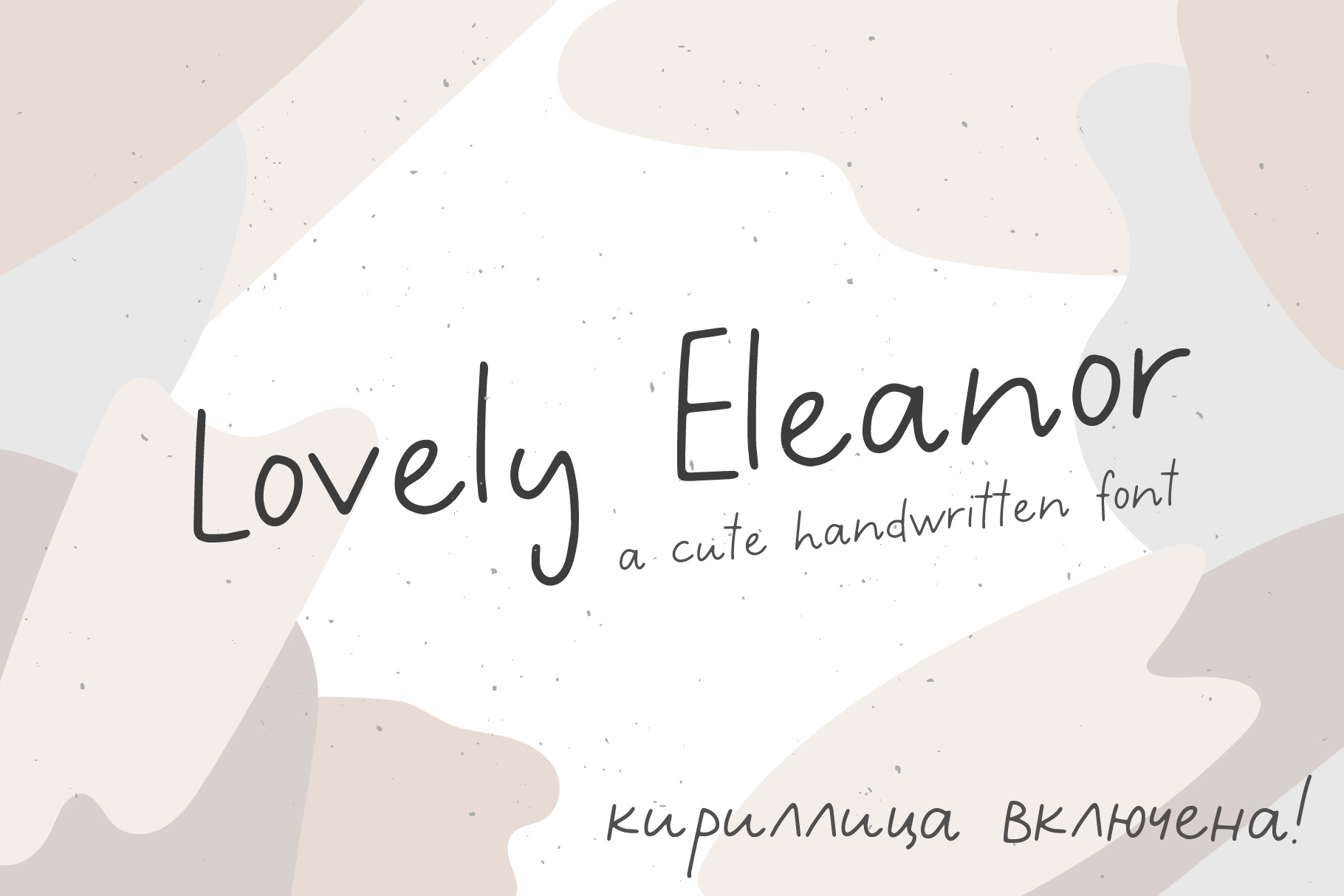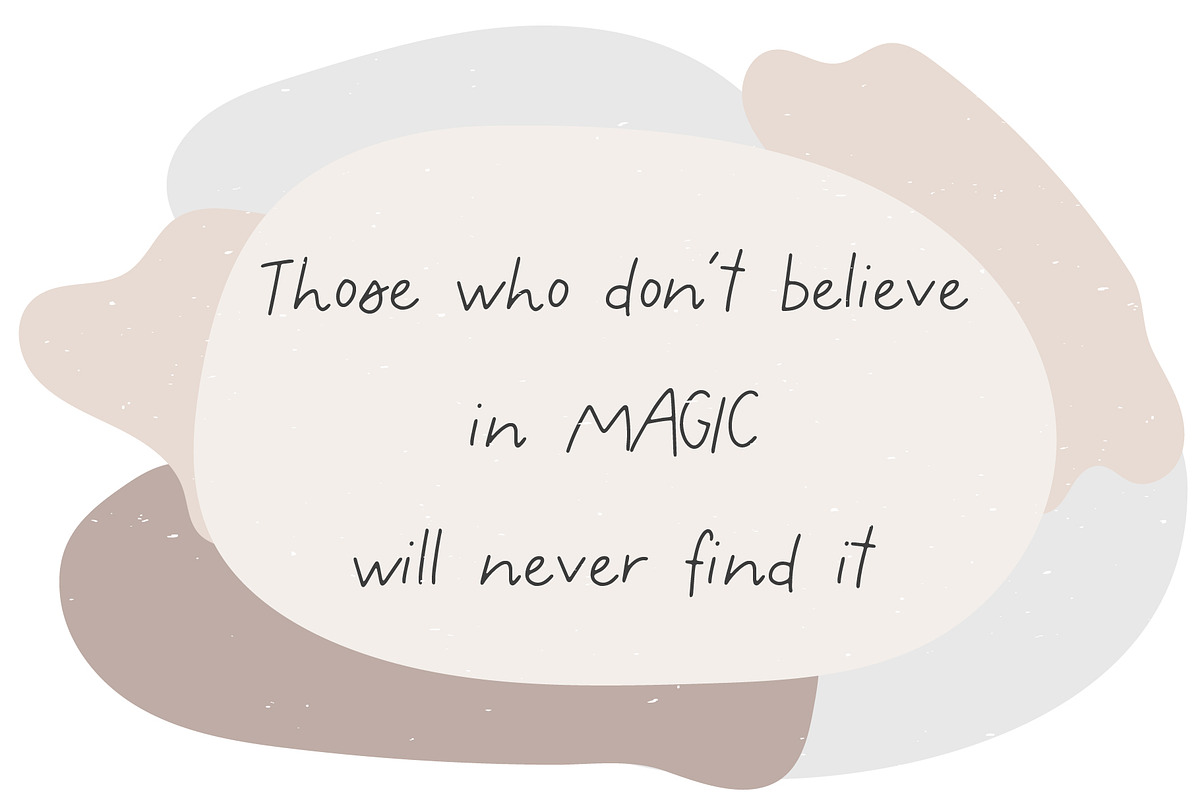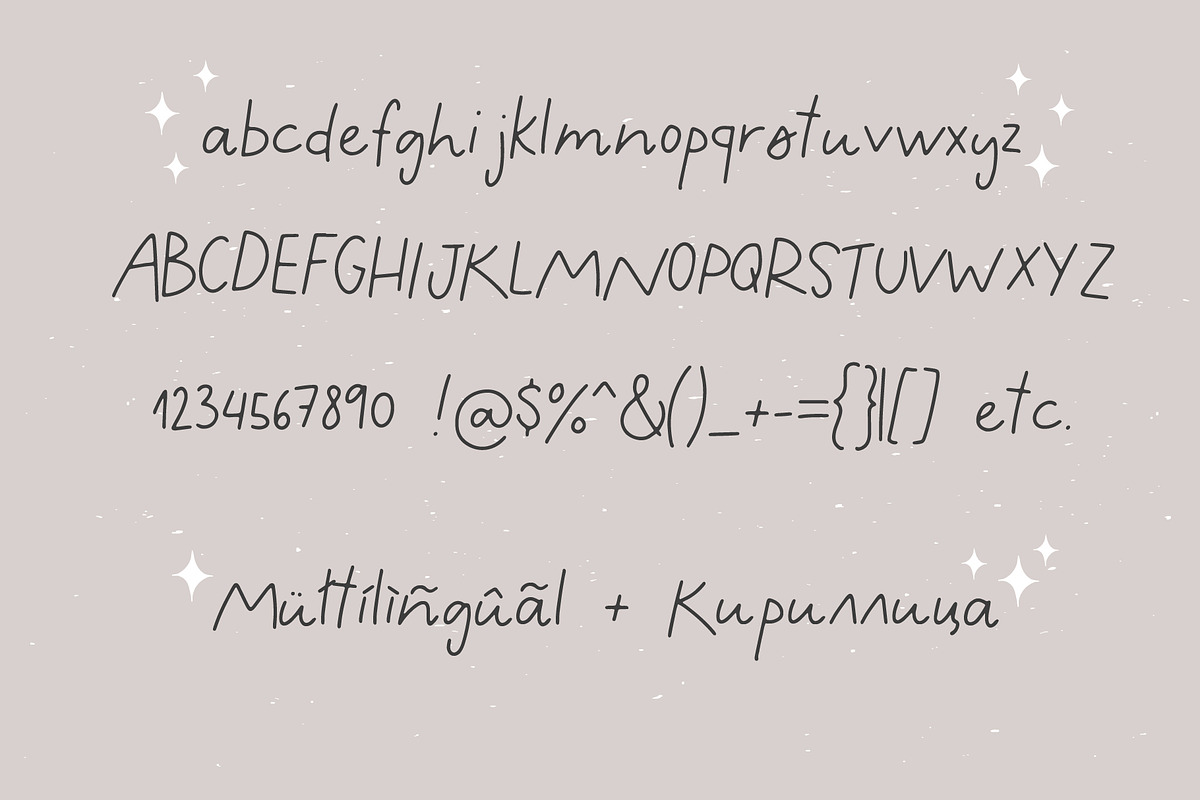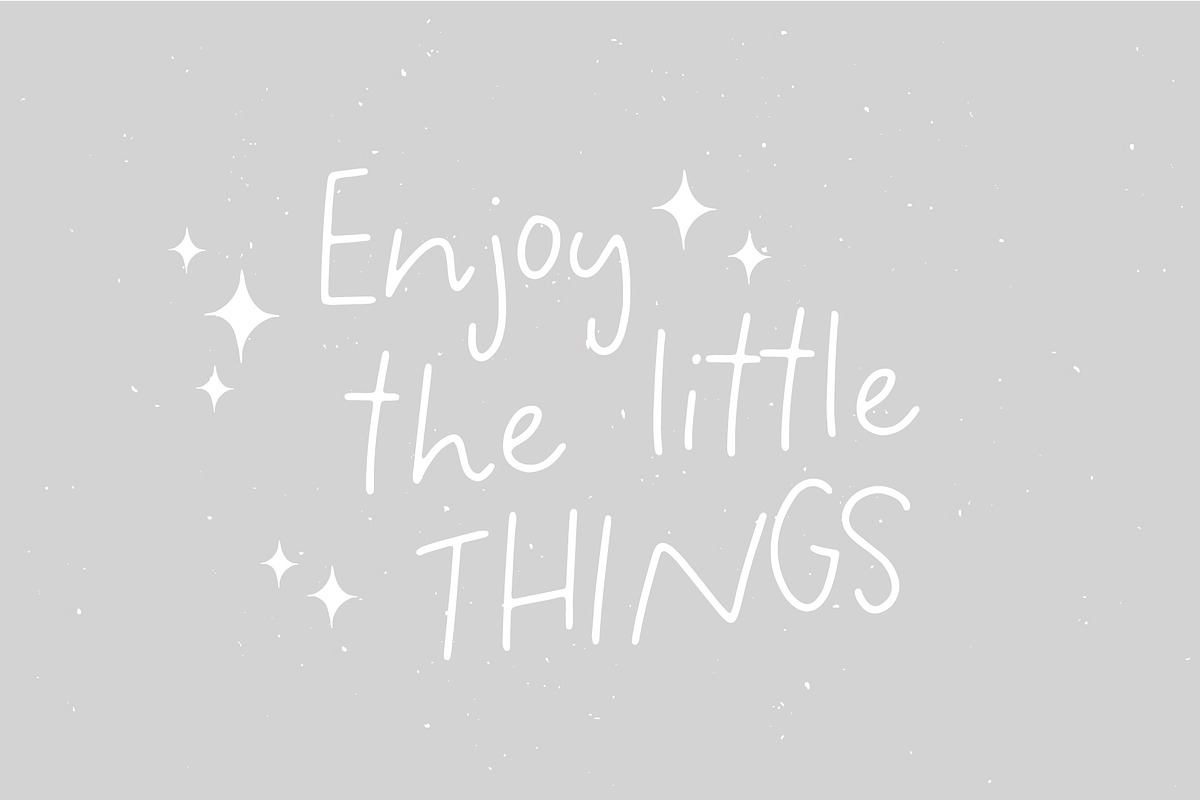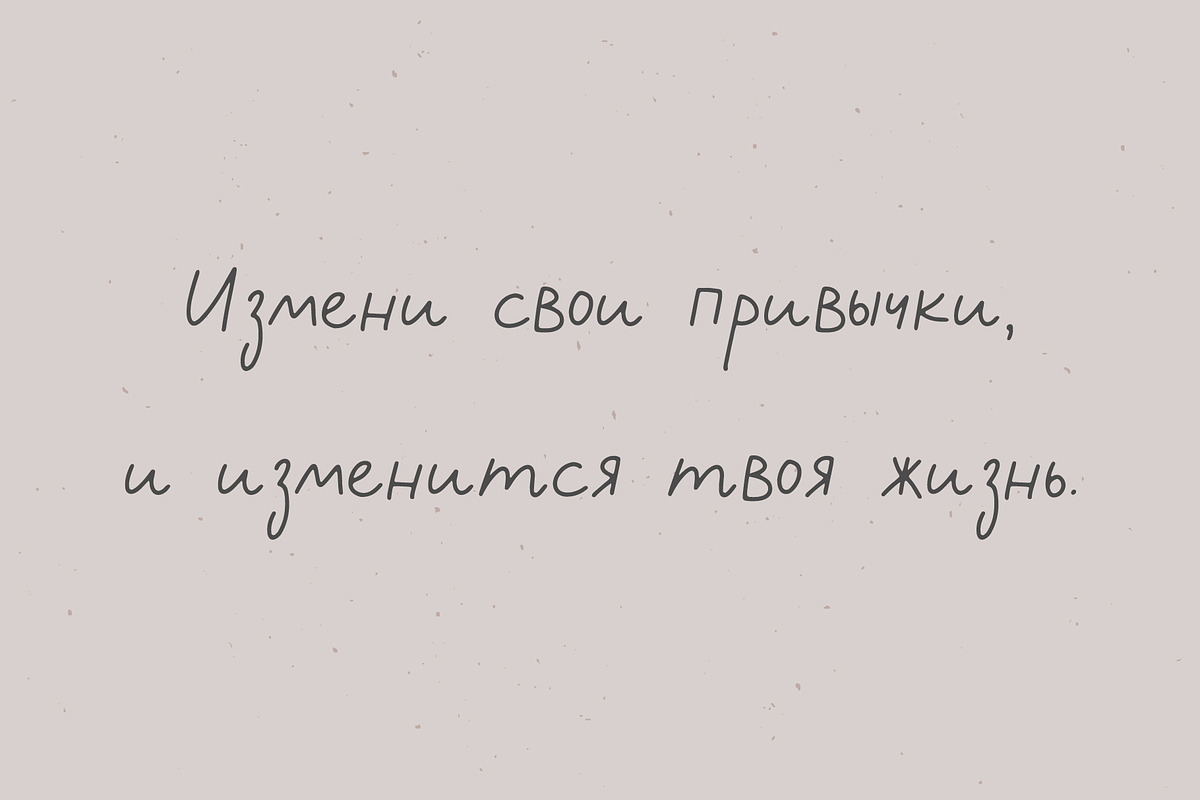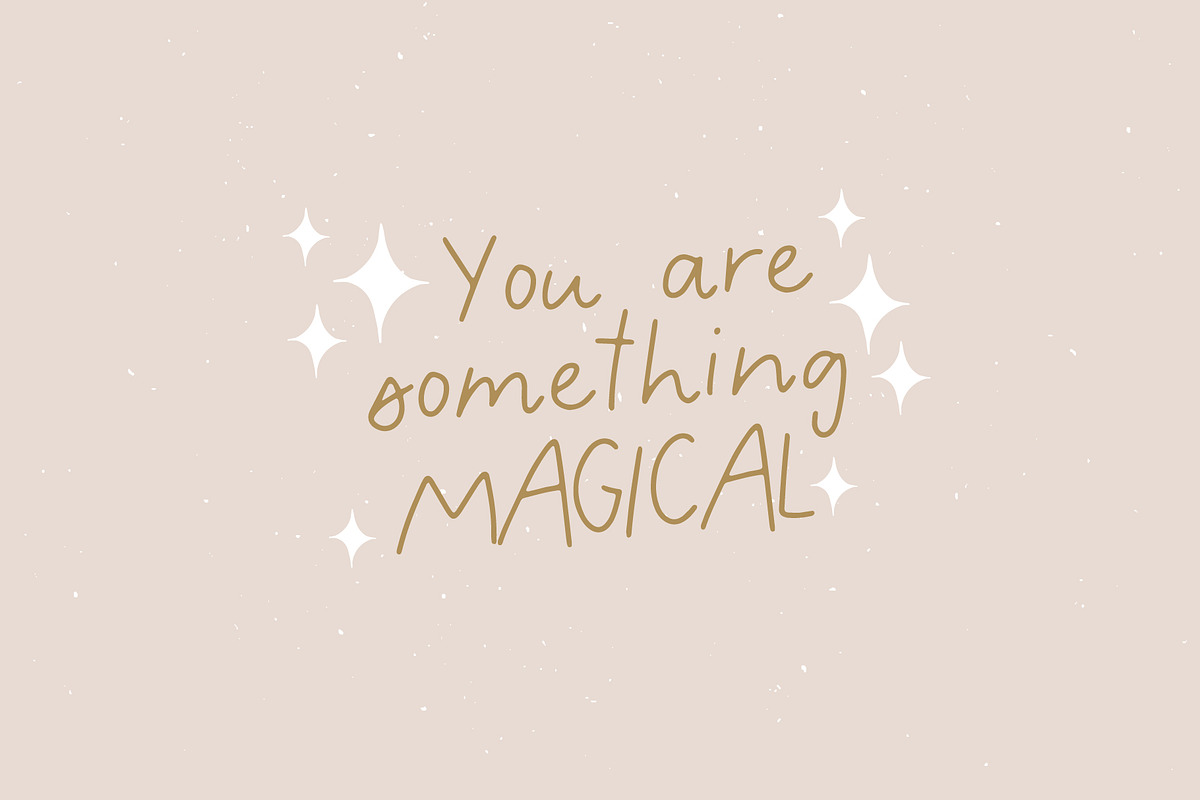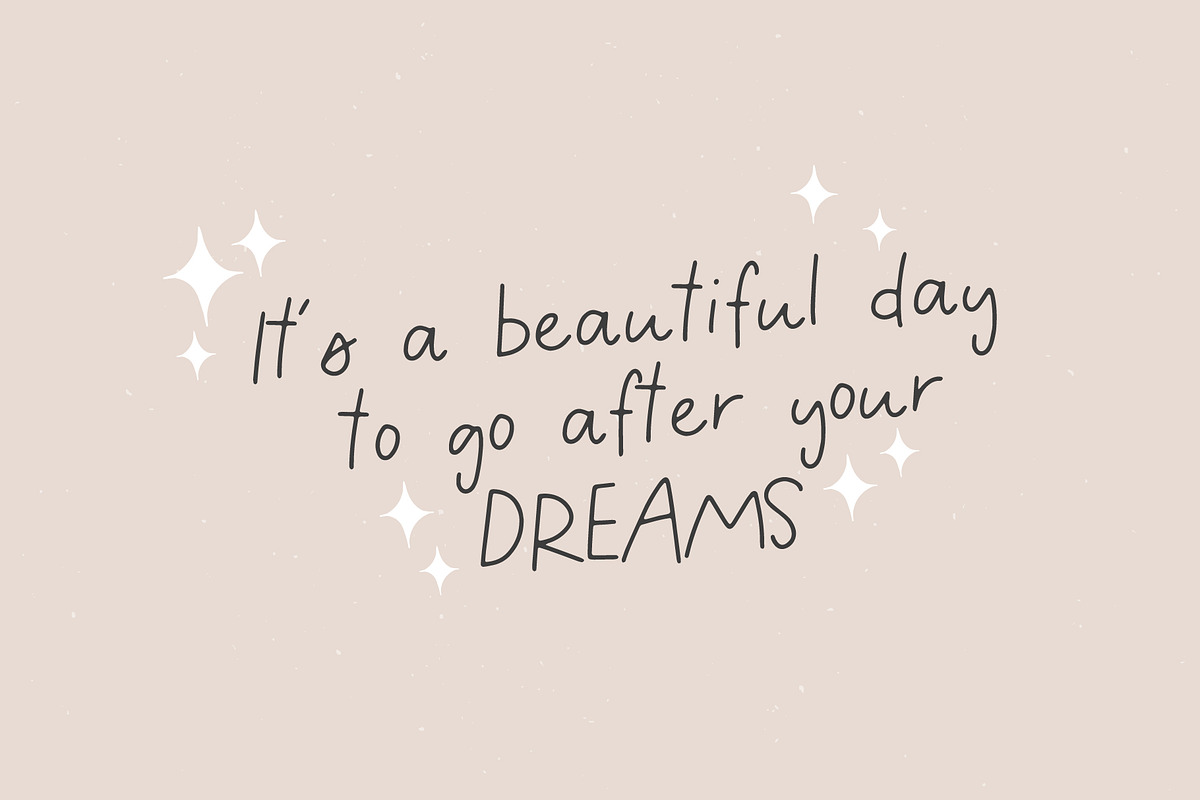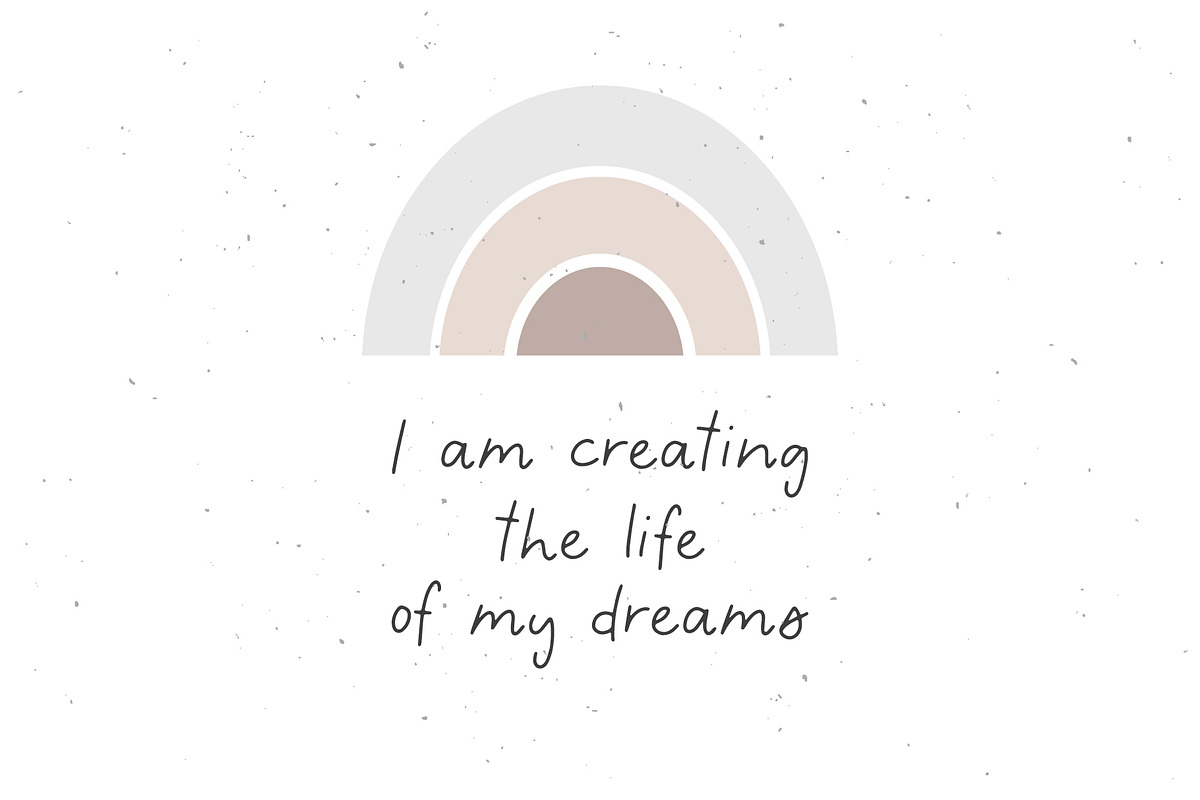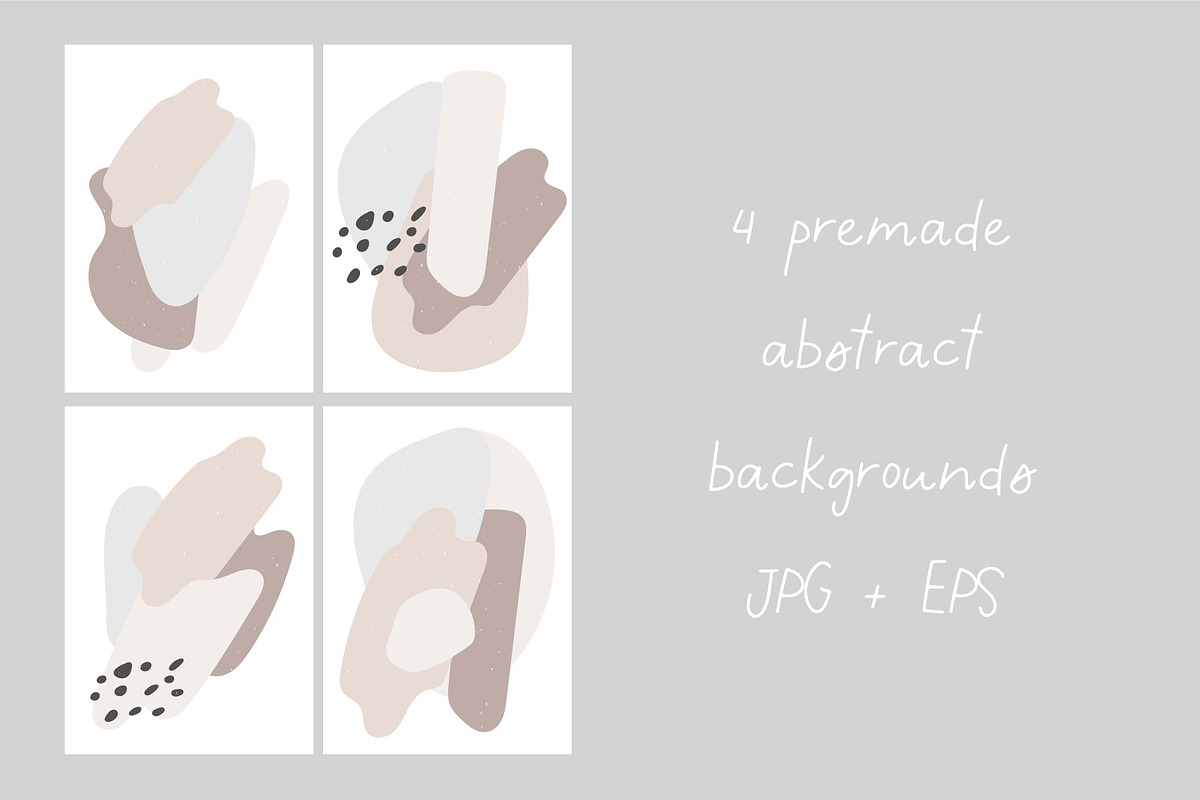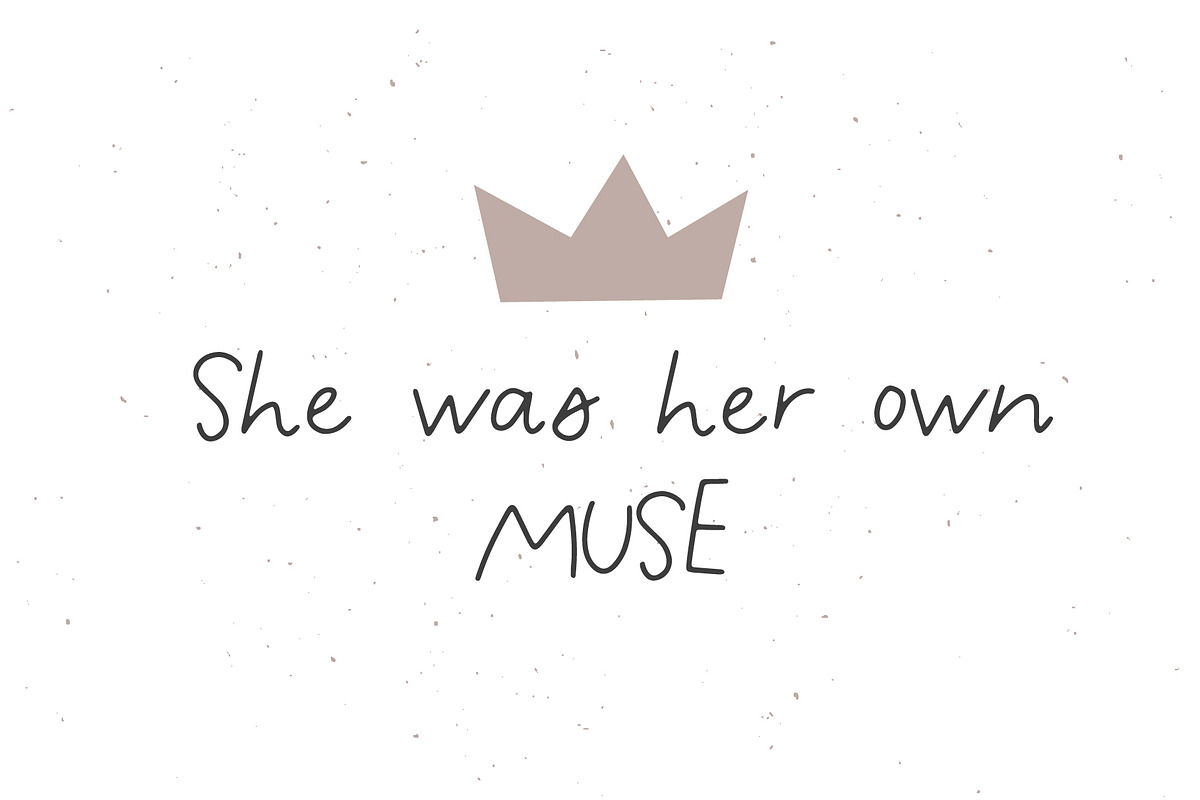
New Lovely Eleanor Cute FONT
Introducing a new handwritten font Lovely Eleanor + Cyrillic + abstract backgrounds
This font is perfect for your designs in your book, children's book, packaging, greeting cards, illustrations, quotes, magazines, prints and posters, logos and much more.
Müłtílîñgūãl śüppórt and кириллица is included